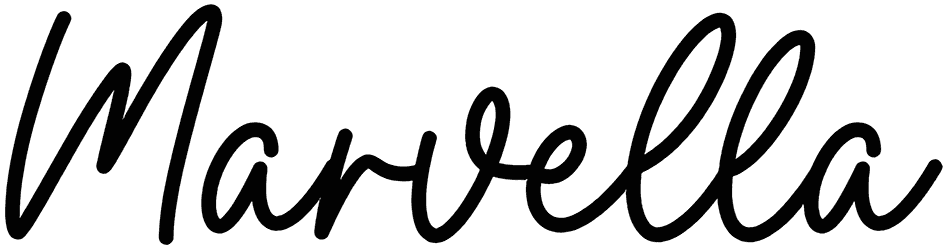
Marvella Font
Given its cute handwritten style and gentle touch, you can always count on Marvella whenever you want your words to sound warm. Even though it’s designed as a cursive font, there’s enough spacing between the characters to ensure it’s easy to read.
So all you need to do is to let this script font describe you as friendly and fun-loving. That’s the whole reason Marvella is such a great fit for your apparel branding designs or labeling pies and sweets.